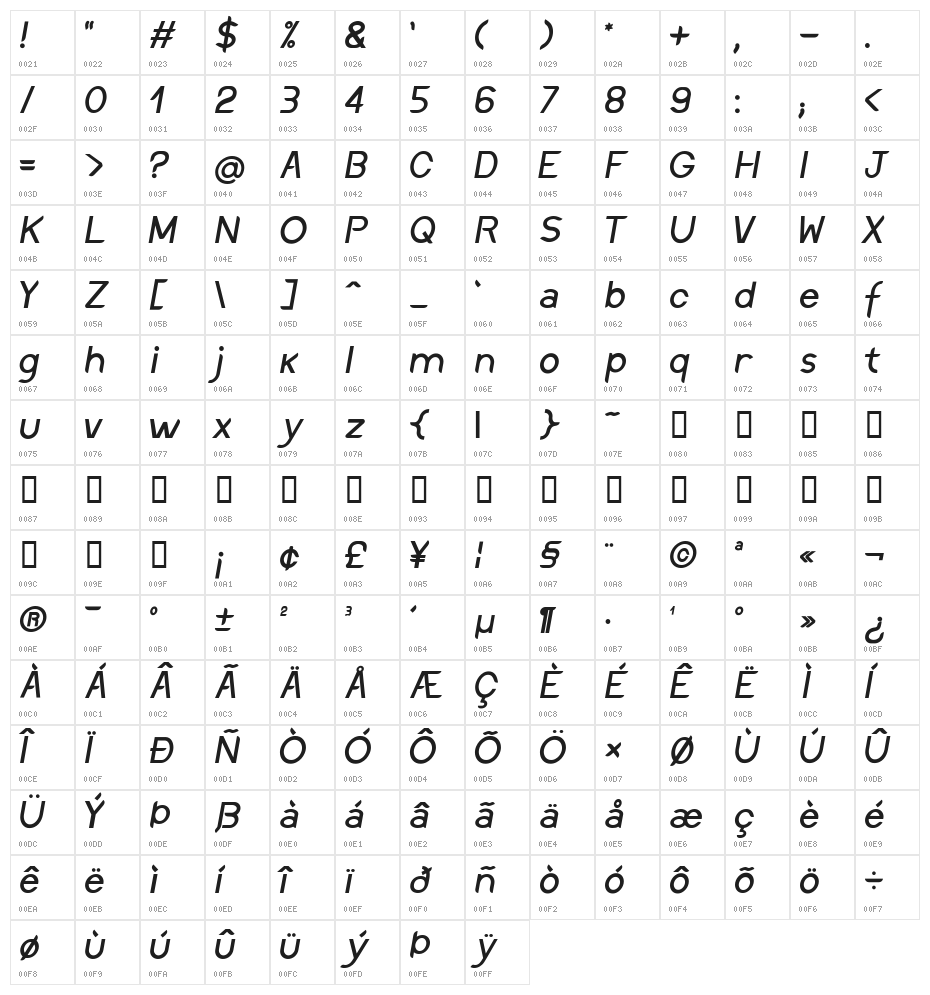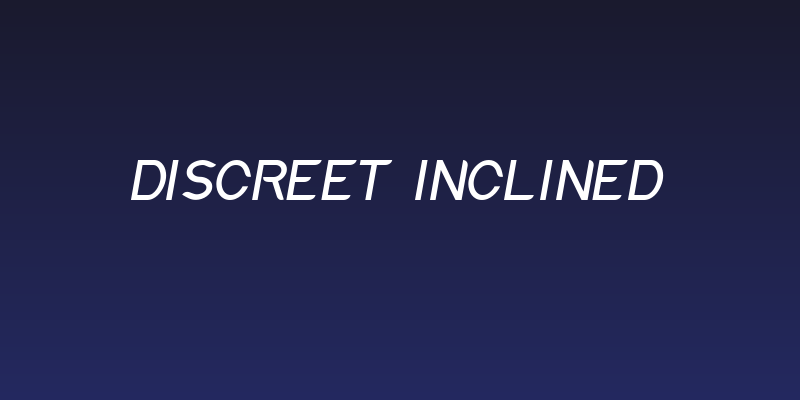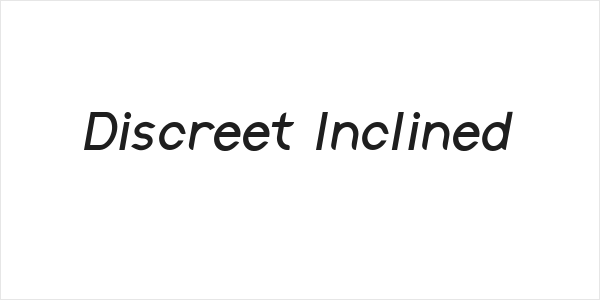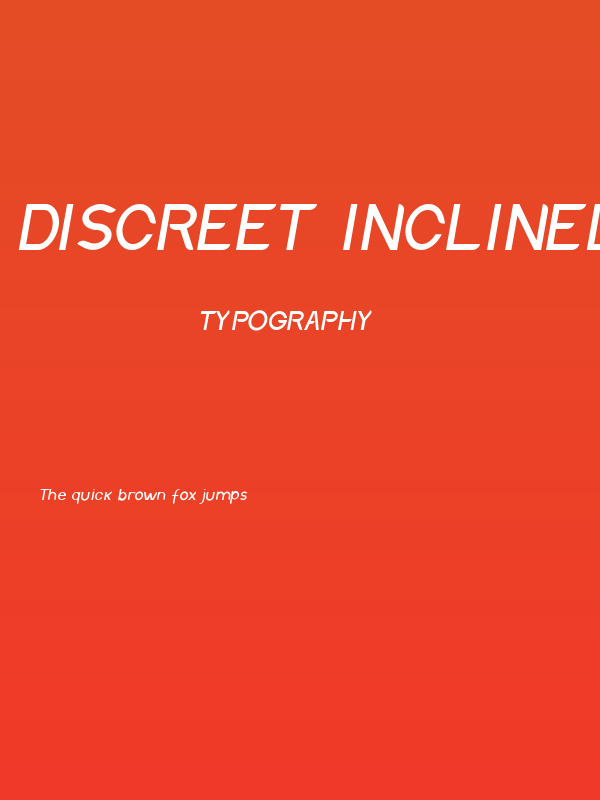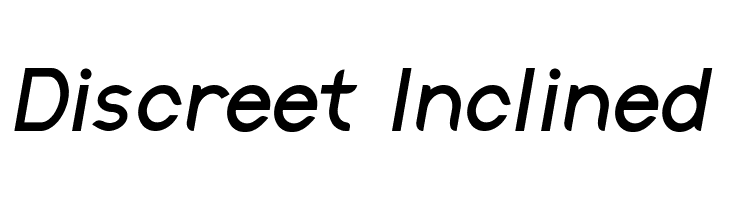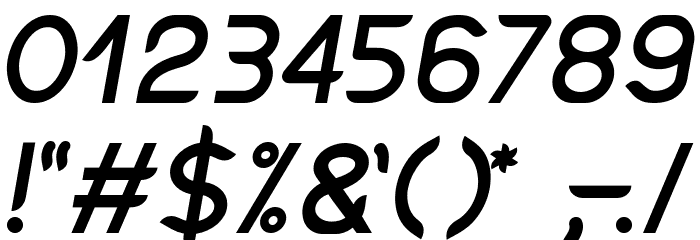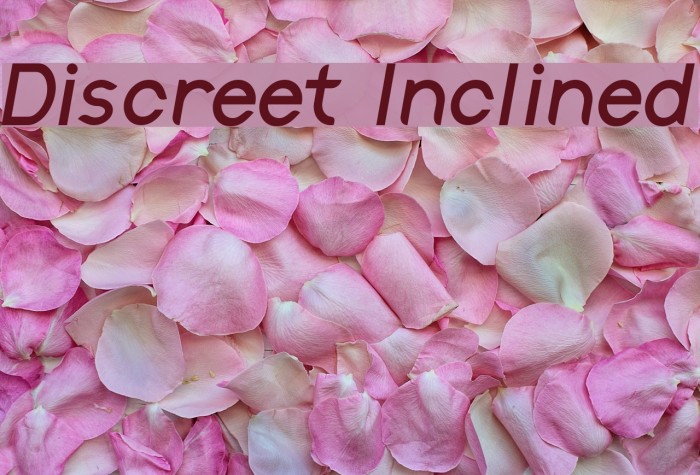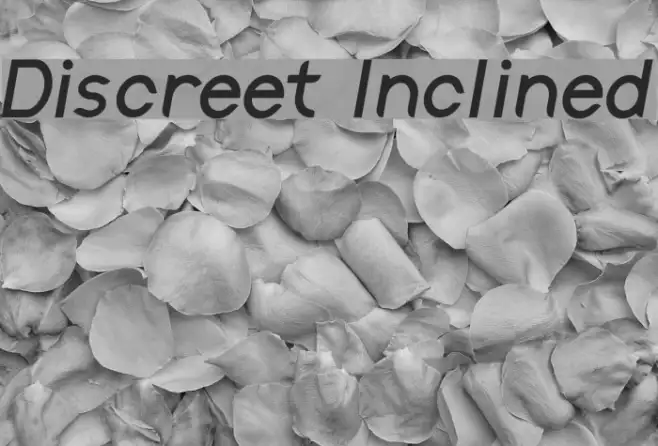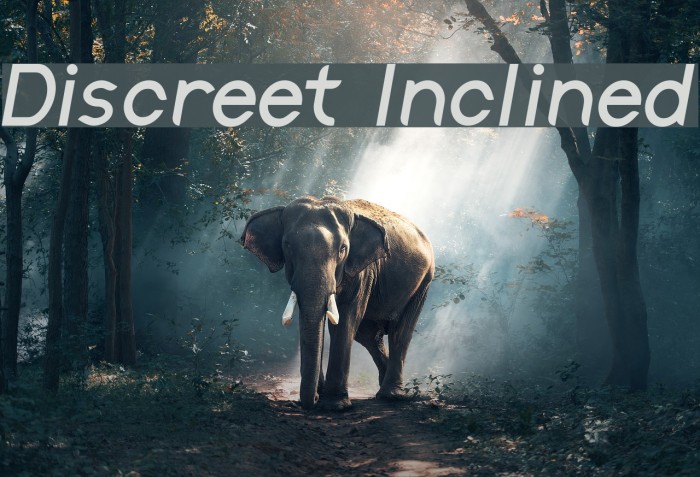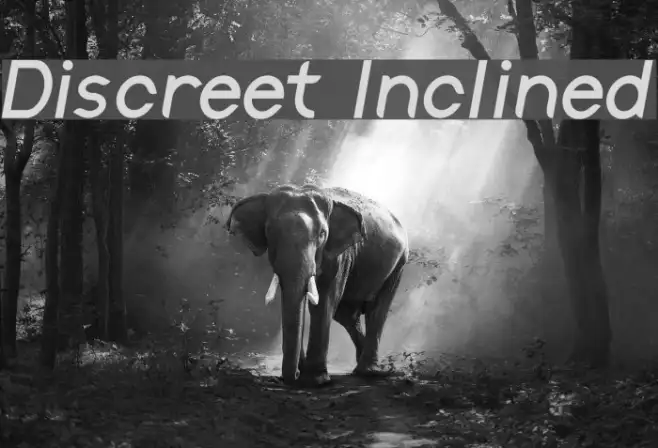
Discreet Inclined Font
Discreet Inclined Description
This font features a sleek, modern design with a slight incline, giving it a dynamic and forward-moving appearance. The characters are clean and well-defined, with a consistent stroke width that maintains readability. The uppercase and lowercase letters are proportionate, and the numerals are clear and distinct. Special characters are included, enhancing its versatility. The overall style is contemporary, making it suitable for a variety of digital and print applications.
| Proposed Projects | Ideal for branding, advertising, digital media, and editorial design where a modern and dynamic look is desired. |